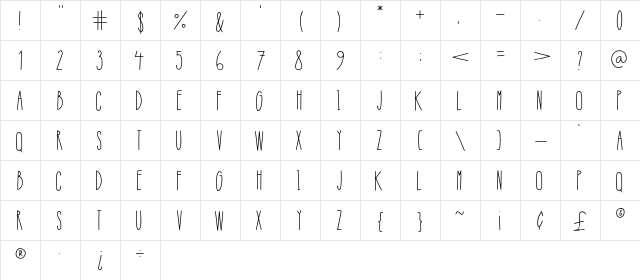
Refresh Regular
Regular ·  Michael Mervinetsky ·
DesignerMichael Mervinetsky
Design Context for Refresh Typeface
Refresh offers clean, dependable letterforms without strong stylistic allegiance, making it a practical choice for designers who need flexibility.